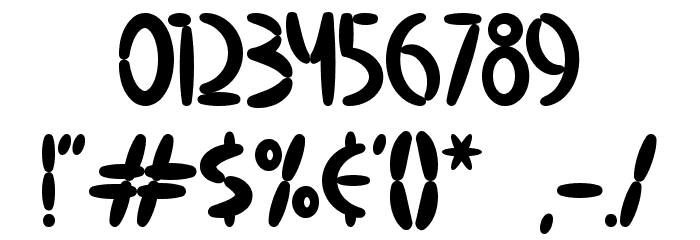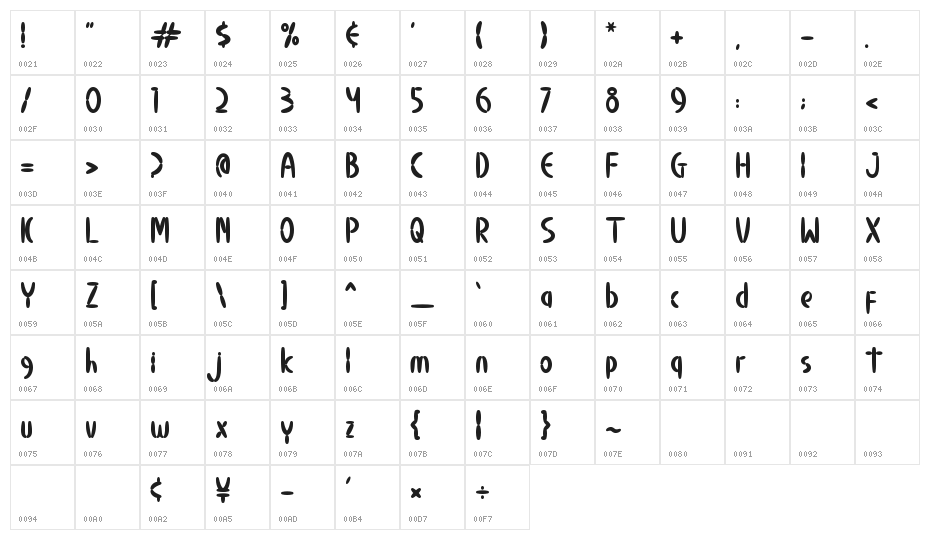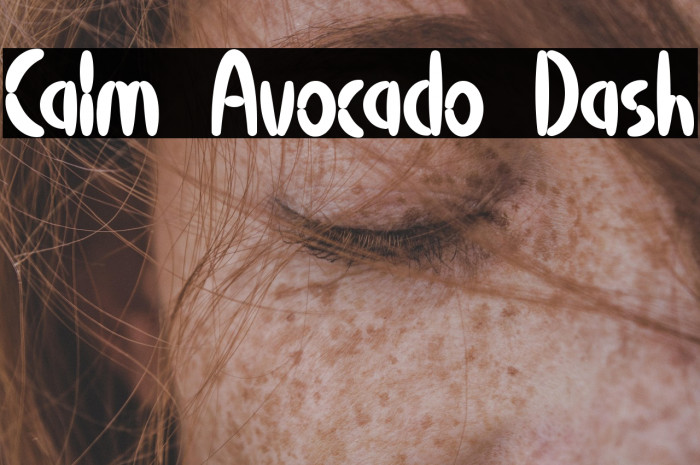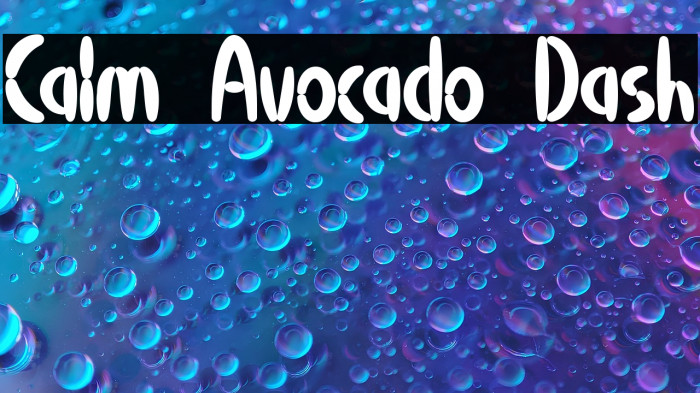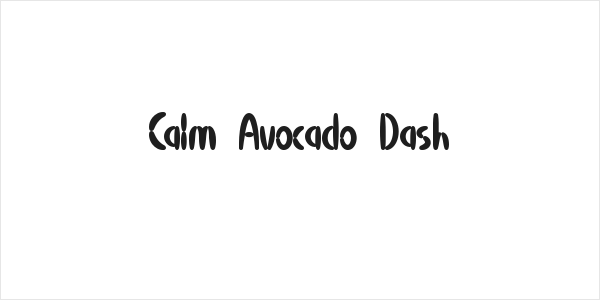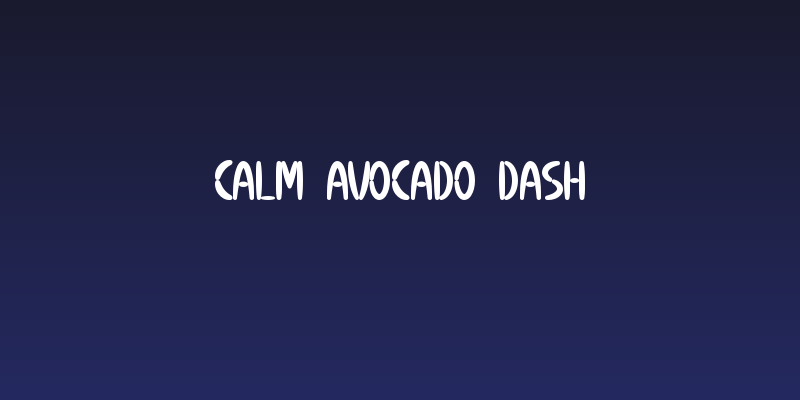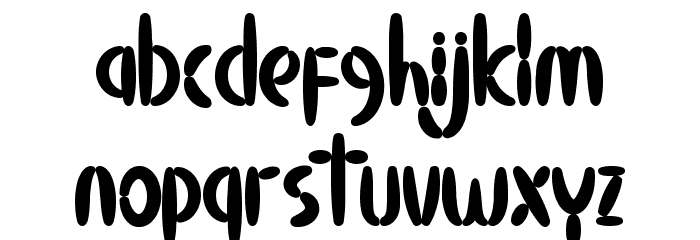
Calm Avocado Dash Font
Calm Avocado Dash Description
This playful and bold font features rounded, thick strokes that give it a friendly and approachable appearance. The characters are slightly condensed, with a consistent stroke width that maintains a uniform look across both uppercase and lowercase letters. The numbers and special characters follow the same design principles, ensuring a cohesive style throughout. The font's whimsical nature makes it suitable for creative and informal projects, adding a touch of fun and personality to any design. Its legibility is maintained despite the decorative elements, making it versatile for various uses.
| Proposed Projects | Ideal for children's books, playful branding, posters, and social media graphics. |